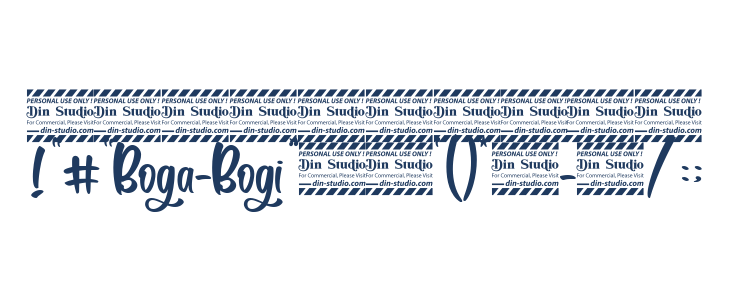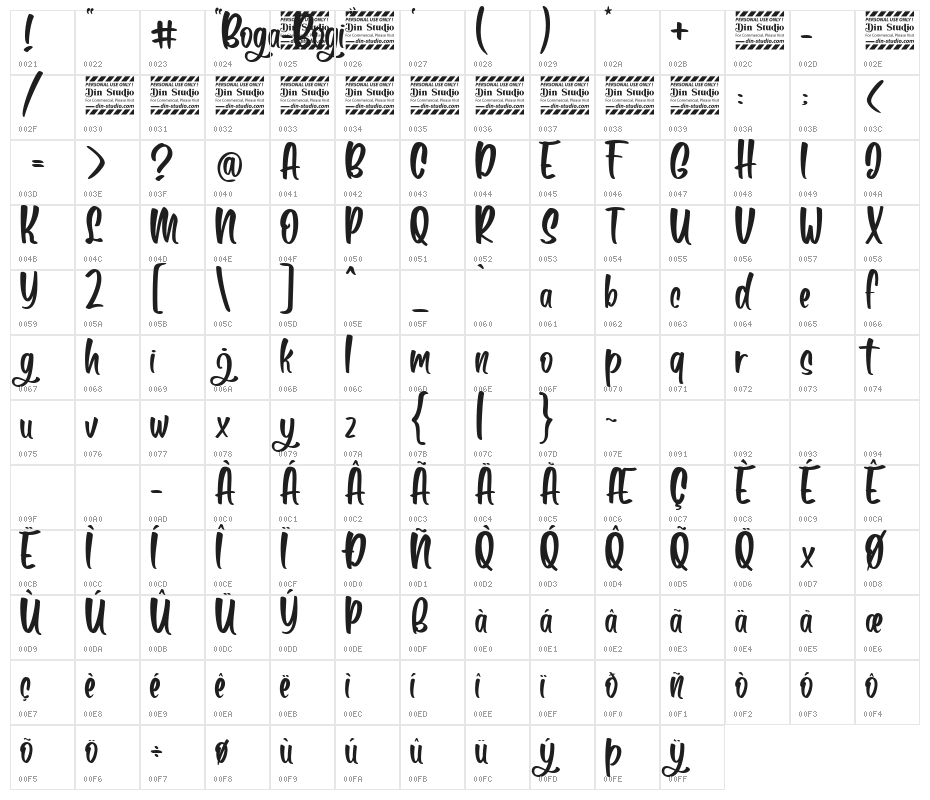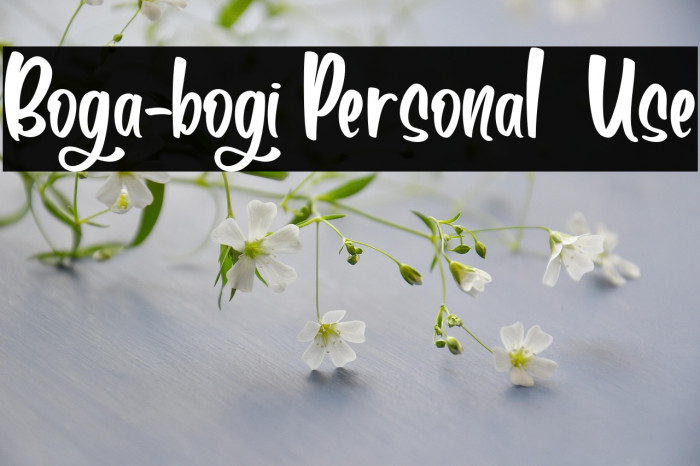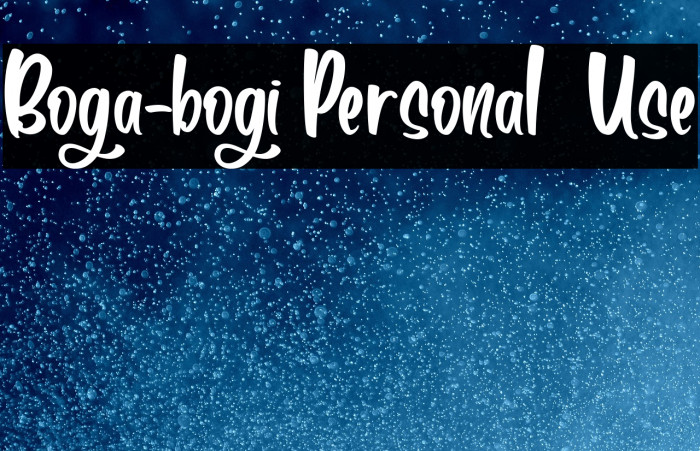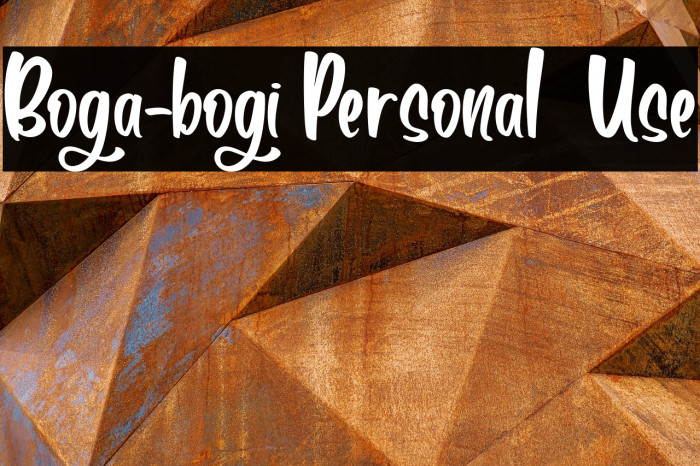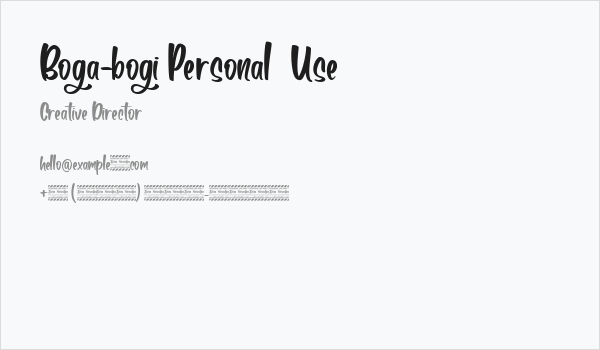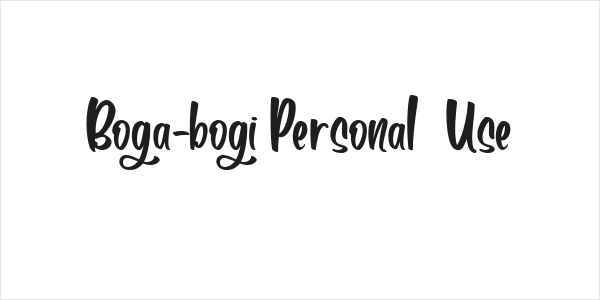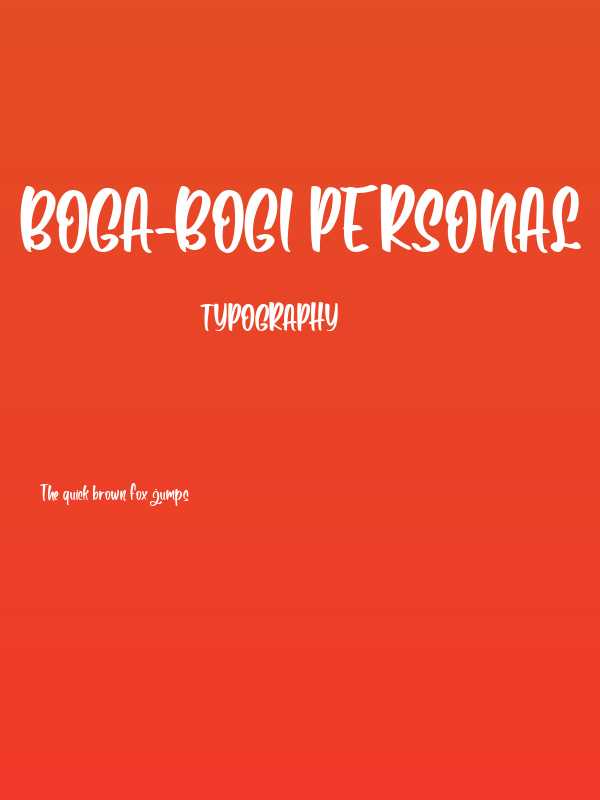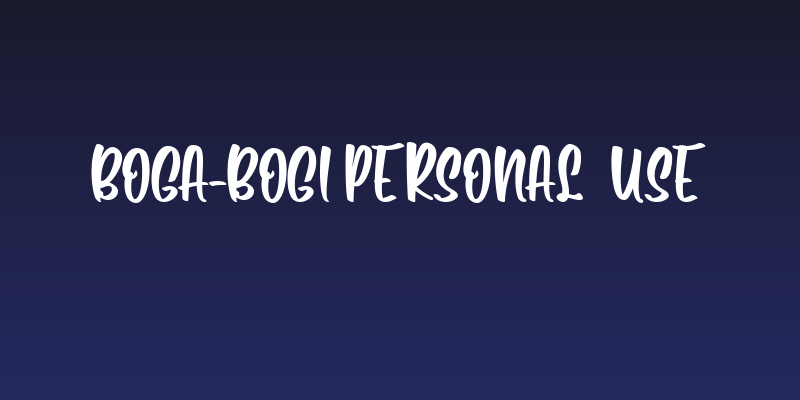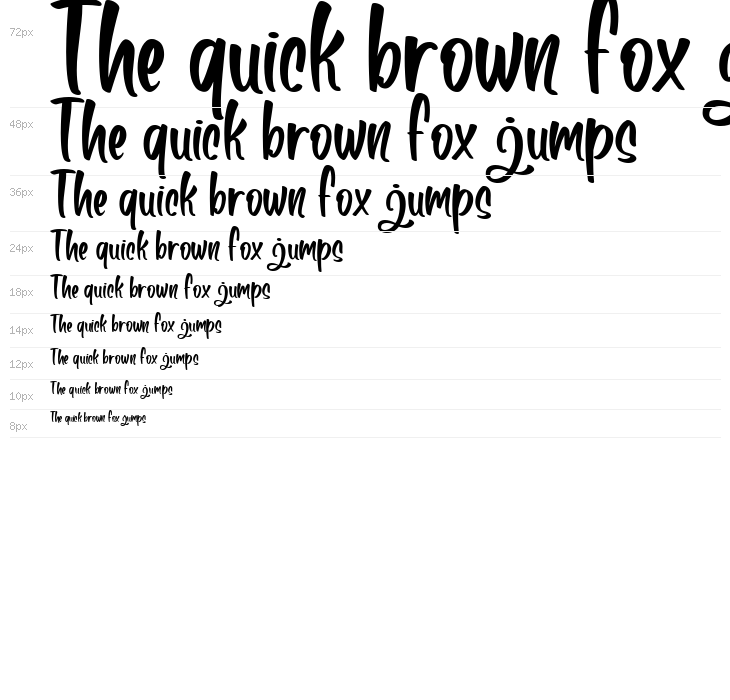
Boga-bogi Personal Use Font
Boga-bogi Personal Use Description
This font features a bold and expressive handwritten style, characterized by its flowing, cursive letterforms. The uppercase letters are tall and slightly condensed, with a playful bounce that adds a dynamic rhythm to the text. The lowercase letters maintain a consistent flow, with unique loops and swashes that enhance its artistic appeal. The font includes a variety of special characters, ensuring versatility in design projects. Its bold strokes and high contrast make it stand out, perfect for creating eye-catching headlines or logos.